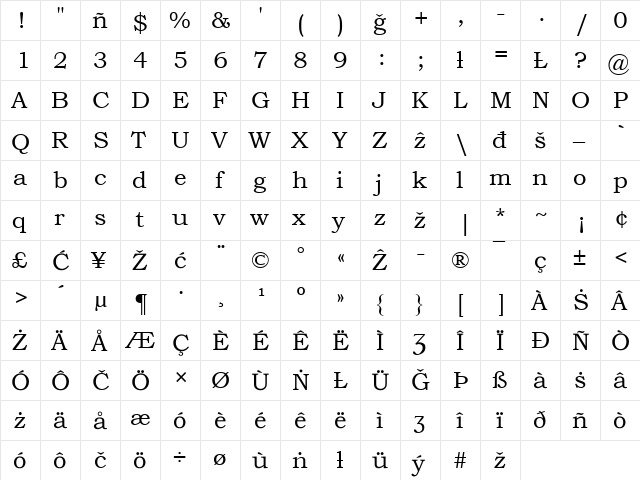
Venetica Bookman Regular
Design Context for Venetica Bookman Typeface
Venetica Bookman offers clean, dependable letterforms without strong stylistic allegiance, making it a practical choice for designers who need flexibility.